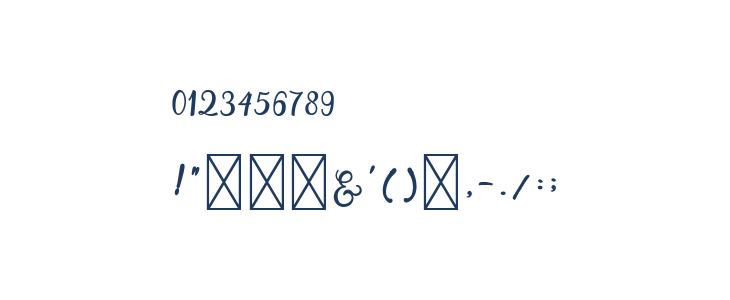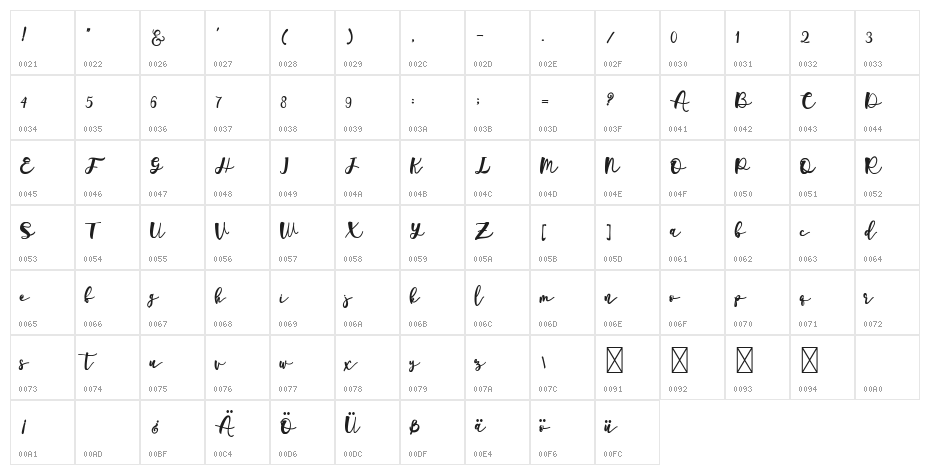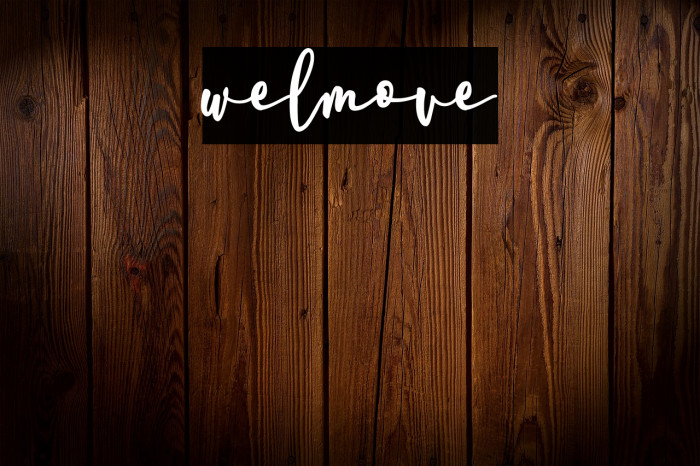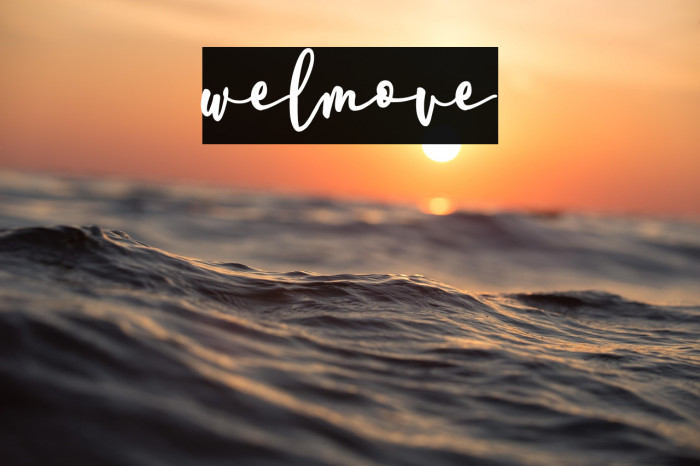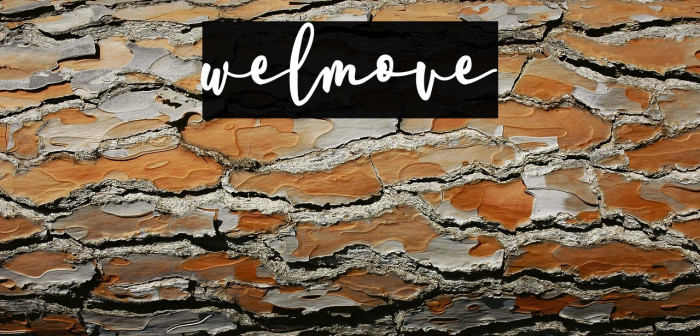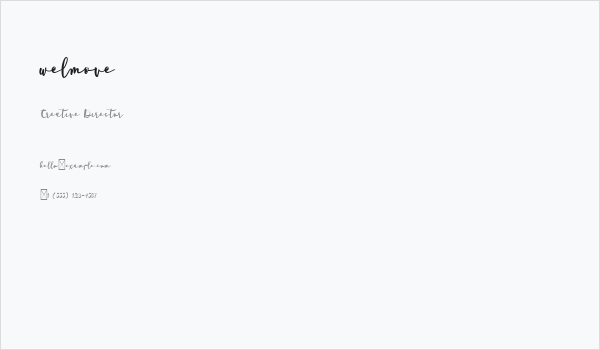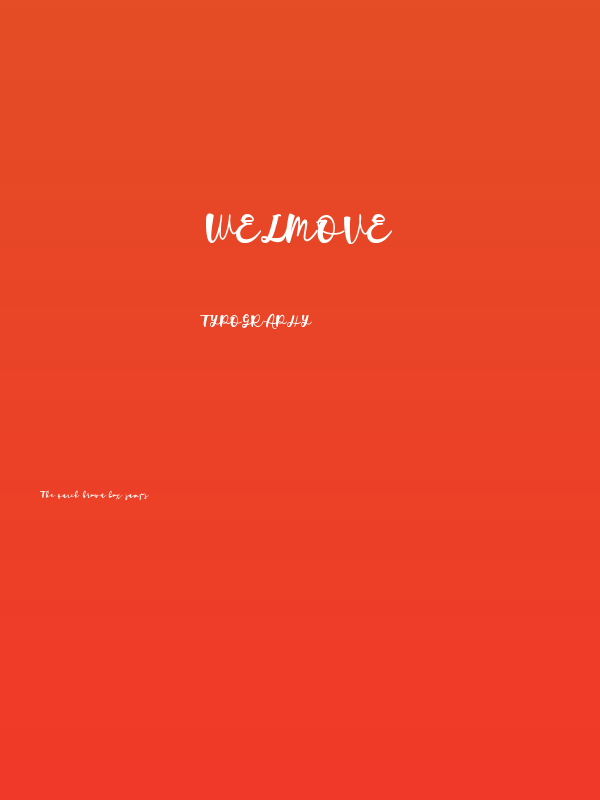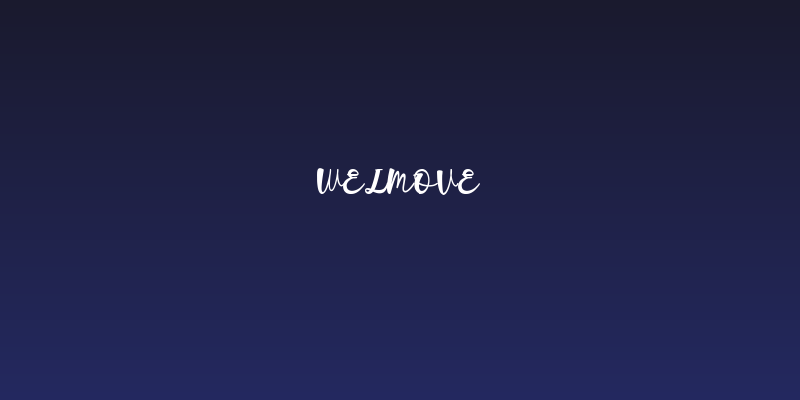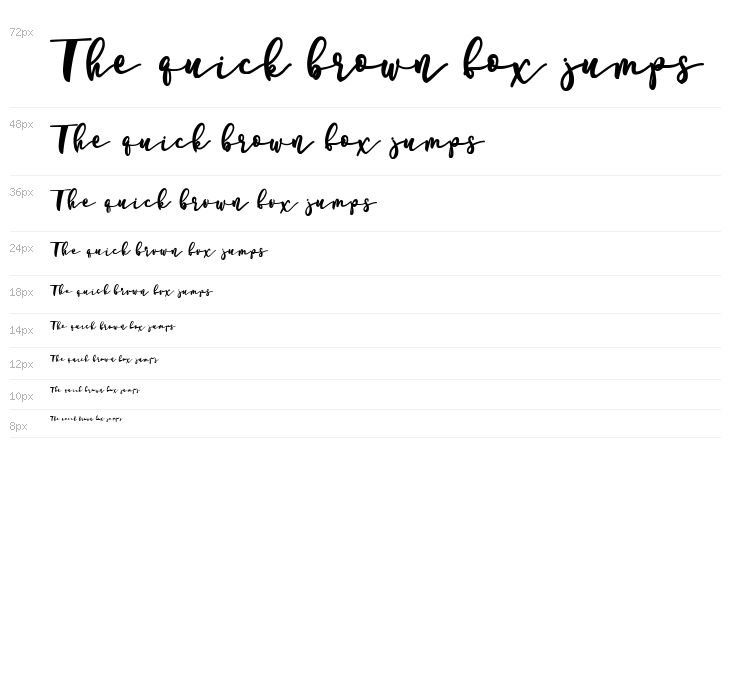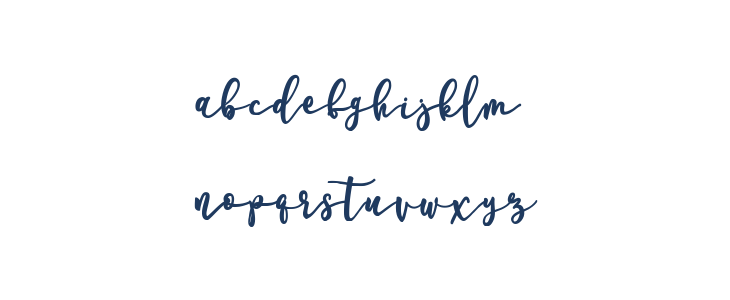
welmove Font
welmove Description
This font features a lively and flowing script style with a modern touch. The uppercase letters are bold and dynamic, with a playful yet elegant flair. The lowercase letters maintain a consistent flow, offering a harmonious and connected appearance. Numbers are clear and legible, complementing the overall aesthetic. Special characters are crafted with the same attention to detail, ensuring versatility in various design contexts. The font's smooth curves and balanced proportions make it suitable for a wide range of creative projects.
| Use Case | Logos, Headlines, Invitations |
| Proposed Projects | Ideal for wedding invitations, greeting cards, branding, and social media graphics. |